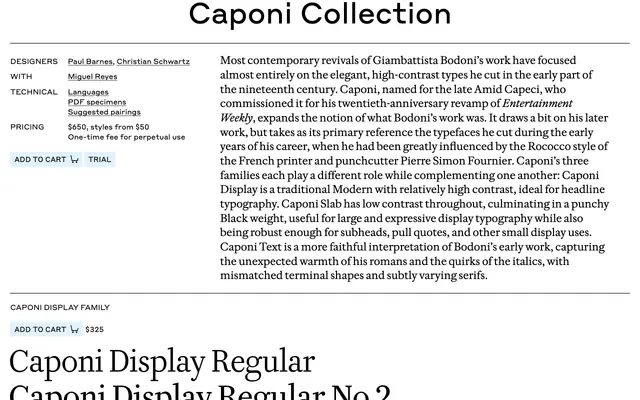
Caponi
Commercial Type · Christian Schwartz, Miguel Reyes · 2020
Caponi specimen from Commercial Type
A three-family Bodoni revival commissioned for Entertainment Weekly's twentieth anniversary, spanning Display, Slab and Text.
A modern serif system named for the late Amid Capeci, who commissioned it for his twentieth-anniversary revamp of Entertainment Weekly. Caponi expands the typical Bodoni revival by pulling on his early career, when he was shaped by the Rococo of Pierre Simon Fournier, rather than only his late high-contrast cuts. The three companion families divide the workload: Caponi Display is a traditional Modern for headlines, Caponi Slab is a low-contrast workhorse that punches at black weights for posters and pull quotes, and Caponi Text is a warmer Bodoni interpretation with quirky italics and subtly varying serifs for long reading.
Commercial Type describe Caponi as a Bodoni revival that expands the canon by reaching back to Bodoni's early career, when he was influenced by the Rococo of Pierre Simon Fournier, rather than the high-contrast late types most revivals focus on.